Title: 10 cross stitch fonts That Will Take Your Embroidery Projects to the Next Level
Introduction:
Cross stitching has been a beloved craft for centuries, allowing crafters to create intricate and beautiful designs. One way to add a personal touch to your cross stitch projects is by using unique fonts. These fonts not only enhance the overall design but also give your creations a distinct personality. In this article, we’ve compiled a list of 10 cross stitch fonts that will take your embroidery projects to the next level. Get ready to be inspired and create stunning illustrations with these eye-catching fonts!
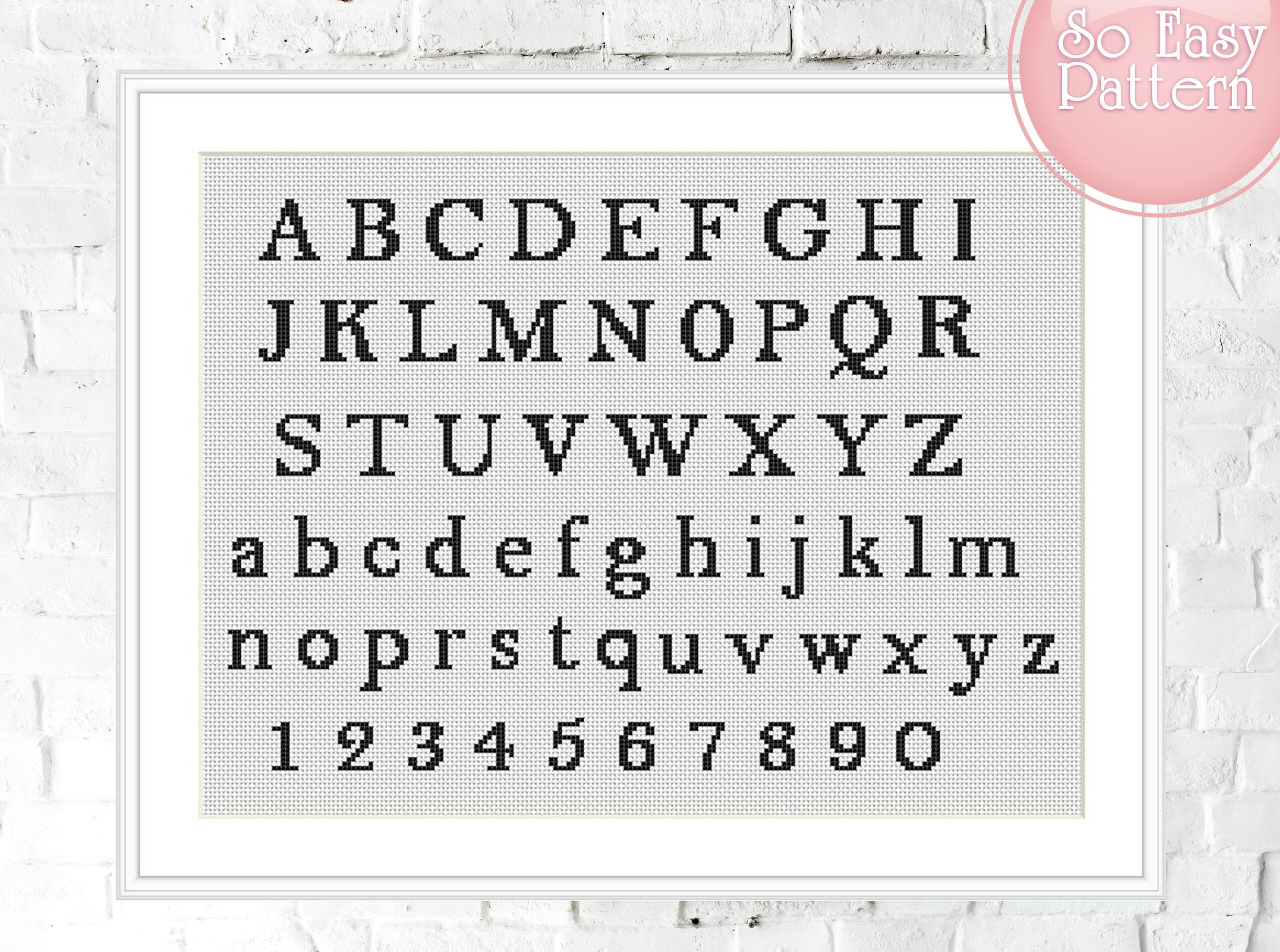
1. Elegant Script Font:
If you’re looking to add a touch of sophistication to your cross stitch projects, an elegant script font is the way to go. With its flowing lines and graceful curves, this font is perfect for monogramming, wedding gifts, or special occasions. Create stunning illustrations with this classic and timeless font.
2. Whimsical Handwritten Font:
Inject some playful charm into your cross stitch designs with a whimsical handwritten font. This font adds a touch of spontaneity and originality to your creations, making them perfect for children’s room decor, greeting cards, or personalized gifts. Watch as your illustrations come to life with this fun and lively font.
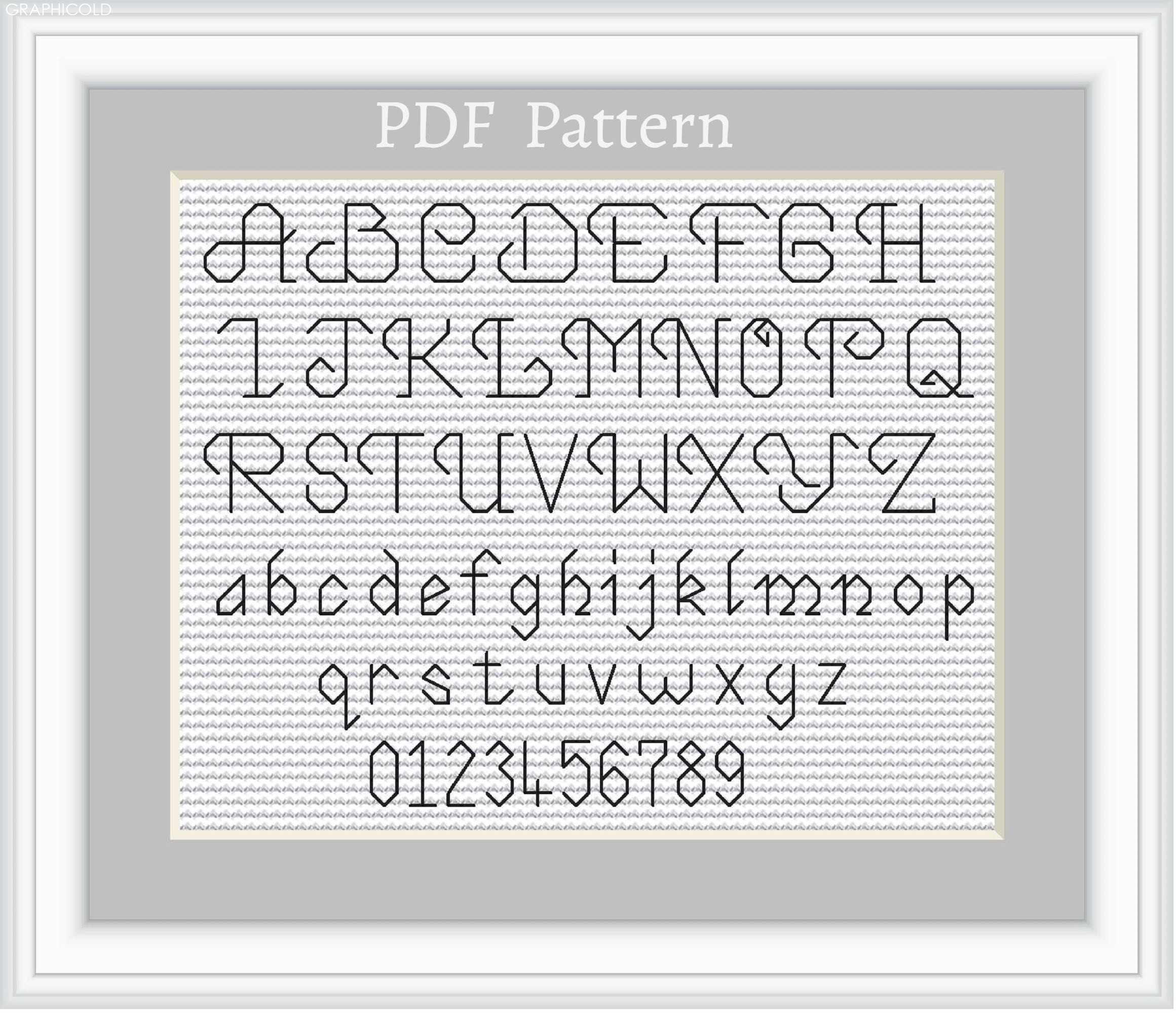
3. Bold Block Font:
Make a bold statement with a block font that grabs attention. This font is perfect for creating impactful illustrations, such as motivational quotes, home decor, or personalized gifts. The clean lines and strong presence of the letters will make your cross stitch projects stand out from the crowd.
4. Vintage Serif Font:
Nostalgic and timeless, a vintage serif font is ideal for those looking to add a touch of old-world charm to their cross stitch projects. Use this font to create beautiful illustrations inspired by vintage labels, classic quotes, or heirloom-style designs. Enrich your projects with a touch of elegance and nostalgia.
5. Modern Sans-Serif Font:
For a contemporary and sleek look, opt for a modern sans-serif font. This font is perfect for creating minimalist and stylish illustrations, making it ideal for home decor, fashion-themed designs, or modern monograms. Elevate your cross stitch projects with a touch of modern simplicity and sophistication.
6. Whimsical Calligraphy Font:
If you’re aiming for a romantic and dreamy vibe, a whimsical calligraphy font is your best bet. This font adds a touch of elegance and grace to your cross stitch projects, making it perfect for wedding gifts, love-themed designs, or personalized keepsakes. Channel your inner romantic and create stunning illustrations with this enchanting font.
7. Playful Cartoon Font:
Bring out your inner child with a playful cartoon font that adds a sense of fun and whimsy to your cross stitch projects. Use this font to create illustrations inspired by favorite cartoons, children’s book characters, or playful quotes. Watch as your creations come alive with this joyful and animated font.
8. Geometric Font:
For a modern and edgy look, try a geometric font that showcases clean lines and sharp angles. This font is perfect for creating contemporary illustrations, abstract designs, or geometric patterns. Add a touch of modernity to your cross stitch projects and let your creativity shine.
9. Retro Typewriter Font:
Capture the nostalgic essence of the typewriter era with a retro typewriter font. This font adds a vintage touch to your cross stitch projects, making it perfect for retro-themed designs, inspirational quotes, or unique signage. Give your illustrations a touch of the past with this charming and evocative font.
10. Hand-Drawn Doodle Font:
Unlock your artistic potential with a hand-drawn doodle font that adds a touch of whimsy to your cross stitch projects. This font is perfect for creating lively illustrations, doodle art, or personalized gifts. Let your imagination run wild and bring your illustrations to life with this creative and playful font.
In conclusion, choosing the right cross stitch font can elevate your embroidery projects and truly make them shine. Experiment with these 10 fonts to create stunning illustrations, whether you’re looking for elegance, playfulness, modernity, or nostalgia. Let your creativity soar and enjoy the intricate art of cross stitch with these captivating fonts.